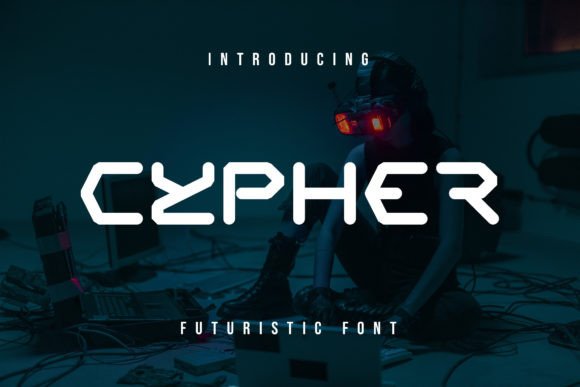
Dive into the realm of typography with Cypher, a captivating display font crafted to elevate your designs to new heights of impact and originality. Its alluring presence, inspired by the essence of the future, will leave an unforgettable mark on your creations.
Cypher's bold strokes and sharp angles evoke a sense of sophistication and modernity, lending themselves seamlessly to headlines, posters, logos, and other attention-grabbing designs. Its crisp and clear lines ensure readability even at smaller sizes, making it a versatile choice for a wide range of applications.
Unleash your creativity with Cypher's diverse character set, featuring a harmonious blend of upper and lowercase letters, numerals, and punctuation. It empowers you to craft visually stunning text that captivates your audience and leaves a lasting impression.
Embrace the power of Cypher and elevate your designs to the next level. Its striking appearance and unmatched functionality make it the perfect choice for designers seeking to create dynamic and unforgettable visual experiences.